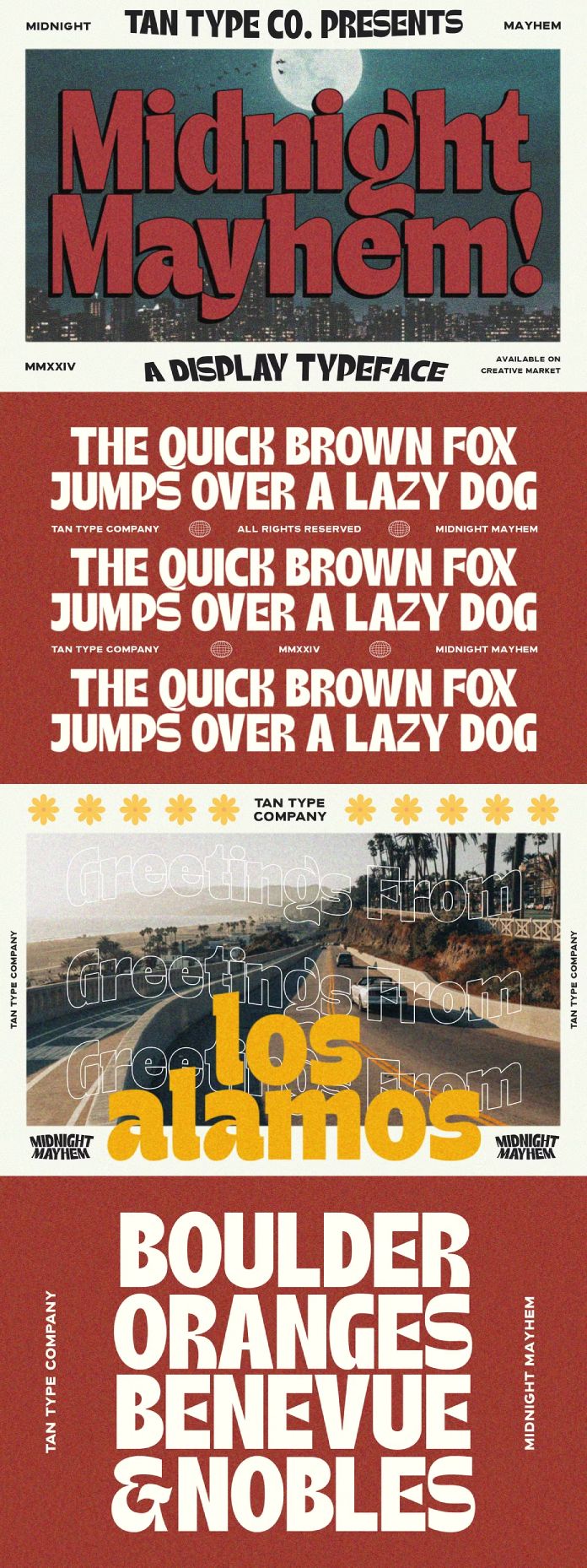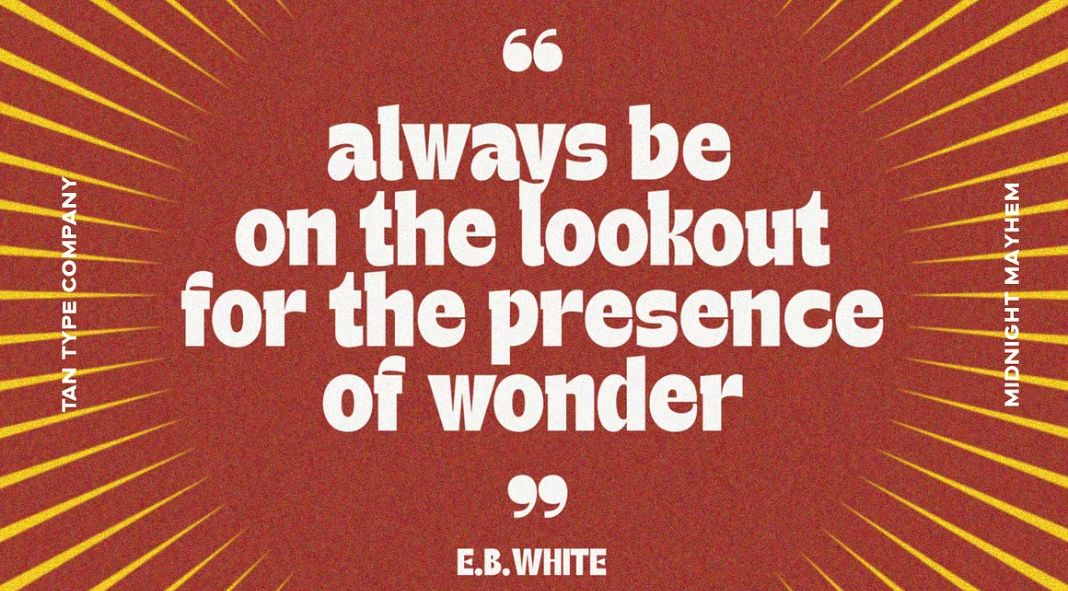
Unleash the Mayhem with TanType’s Midnight Mayhem Font
Calling all typographic thrill-seekers! Buckle up for a font that’s equal parts edgy and elegant. TanType’s Midnight Mayhem is a bold display typeface that injects a dose of vintage flair into your designs.
This typeface is perfect for those who want to make a statement. Its distinct shapes and playful curves lend themselves perfectly to headlines, posters, and branding materials. Midnight Mayhem is also surprisingly versatile, working well for everything from retro-inspired designs to modern projects with a touch of edge.
One of the things that makes Midnight Mayhem so special is its inclusion of ligatures. Ligatures are typographic flourishes that combine two or more letters into a single character. They can add a touch of sophistication and style to your text.
Here are some other reasons to love Midnight Mayhem:
- Multilingual support: This font is perfect for reaching a global audience.
- A variety of sizes: Find the perfect size for your project, whether you’re creating a headline or a small piece of text.
So, if you’re looking for a font that will add a touch of personality and vintage charm to your designs, then Midnight Mayhem is definitely worth checking out.
Here are some additional ideas for using Midnight Mayhem:
- Create eye-catching headlines for your blog posts or website.
- Design a unique logo for your business.
- Make a statement with your social media graphics.
- Create packaging that will stand out on the shelves.
- Add a touch of personality to your invitations and other stationery.
With its bold style and vintage flair, Midnight Mayhem is a versatile font that can be used for a wide variety of creative projects. So unleash your inner design rebel and start creating something amazing!